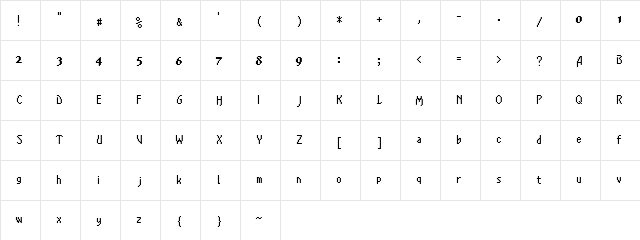
Final Fantasy I GBAb Regular
Design Context for Final Fantasy I GBAb Typeface
Final Fantasy I GBAb takes a measured approach to typography — its balanced proportions and neutral character make it a reliable workhorse for both digital and print work.